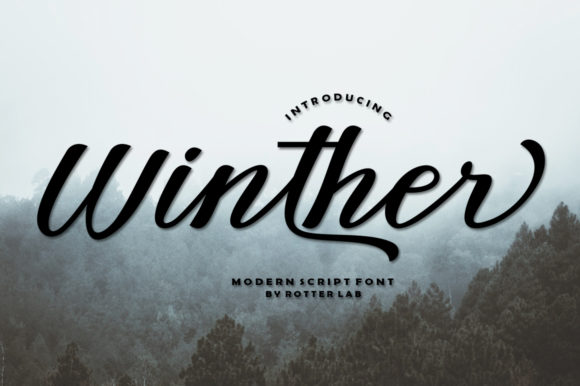
Introducing the Winther Script Font: A Modern Brush Font for Unique Designs
The Winther script font is a modern brush font that has been gaining popularity among designers and artists. Its bold and irregular baseline makes it perfect for adding a unique touch to your designs. In this article, we will explore the features and benefits of the Winther script font and how it can be used in various design projects.
What is the Winther Script Font?
The Winther script font is a modern brush font that is designed to give your designs a bold and unique look. It has a irregular baseline, which gives it a hand-painted or handwritten feel. This font is perfect for designers who want to add a personal touch to their designs. The Winther script font is versatile and can be used for a wide range of design projects, from watercolor designs to lettering, blogs, headers, branding, t-shirts, weddings, and more.
Features of the Winther Script Font
The Winther script font has several features that make it a popular choice among designers. Some of its key features include:
- Bold and irregular baseline: The Winther script font has a bold and irregular baseline that gives it a unique and hand-painted look.
- Modern design: The font has a modern design that makes it perfect for contemporary design projects.
- Versatile: The Winther script font can be used for a wide range of design projects, from watercolor designs to lettering, blogs, headers, branding, t-shirts, weddings, and more.
- Easily readable: Despite its bold and irregular baseline, the Winther script font is easily readable, making it perfect for body text and headlines.
Benefits of Using the Winther Script Font
The Winther script font has several benefits that make it a popular choice among designers. Some of its key benefits include:
- Unique look: The Winther script font gives your designs a unique and bold look that sets it apart from other fonts.
- Time-saving: The font is easily readable and can be used for body text and headlines, saving you time and effort.
- Versatility: The Winther script font can be used for a wide range of design projects, making it a great investment for designers.
- Easily customizable: The font can be easily customized to fit your design needs, making it perfect for branding and advertising projects.
Uses of the Winther Script Font
The Winther script font can be used for a wide range of design projects, including:
- Watercolor designs: The font’s bold and irregular baseline makes it perfect for watercolor designs and illustrations.
- Lettering: The Winther script font can be used for lettering projects, such as quotes, posters, and signs.
- Blogs and websites: The font can be used for blogs and websites to add a unique touch to your design.
- Headers and titles: The Winther script font can be used for headers and titles to add a bold and eye-catching element to your design.
- Branding and advertising: The font can be used for branding and advertising projects to add a unique and memorable touch to your design.
- T-shirts and apparel: The Winther script font can be used for t-shirts and apparel to add a bold and stylish element to your design.
- Weddings and events: The font can be used for weddings and events to add a touch of elegance and sophistication to your design.
Tips for Using the Winther Script Font
Here are some tips for using the Winther script font:
- Use it sparingly: The Winther script font is bold and eye-catching, so use it sparingly to avoid overwhelming your design.
- Pair it with a simple font: Pair the Winther script font with a simple font to create a balanced and harmonious design.
- Experiment with colors: The font looks great in bold and bright colors, so experiment with different colors to find the one that works best for your design.
- Pay attention to spacing: Pay attention to the spacing between letters and words to ensure that your design is easily readable.
The Winther script font is a modern brush font that is perfect for adding a unique touch to your designs. Its bold and irregular baseline makes it stand out from other fonts, and its versatility makes it suitable for a wide range of design projects. With its ease of use and customization options, the Winther script font is a great investment for designers and artists.
- What is the Winther script font?: The Winther script font is a modern brush font that has a bold and irregular baseline.
- What is the Winther script font used for?: The Winther script font can be used for a wide range of design projects, including watercolor designs, lettering, blogs, headers, branding, t-shirts, weddings, and more.
- Is the Winther script font easily readable?: Yes, the Winther script font is easily readable, making it perfect for body text and headlines.
- Can I customize the Winther script font?: Yes, the Winther script font can be easily customized to fit your design needs.